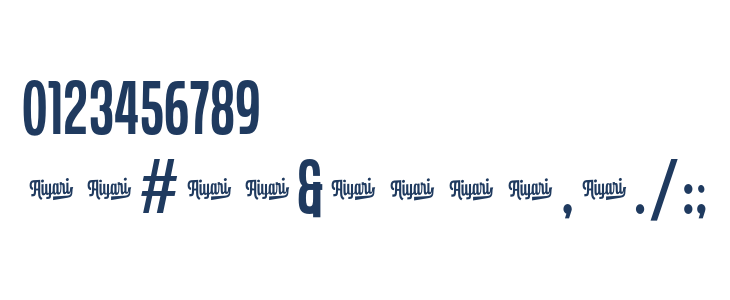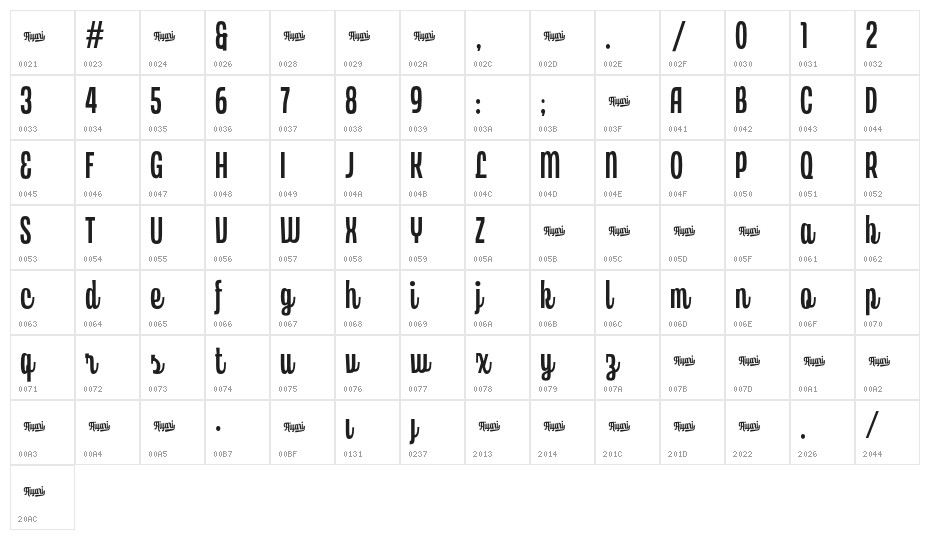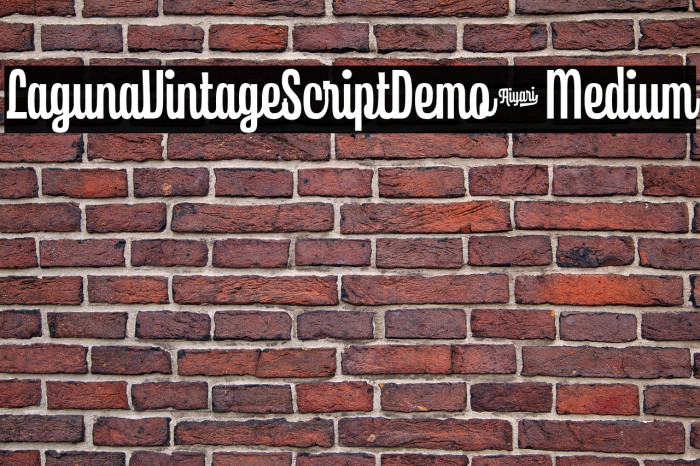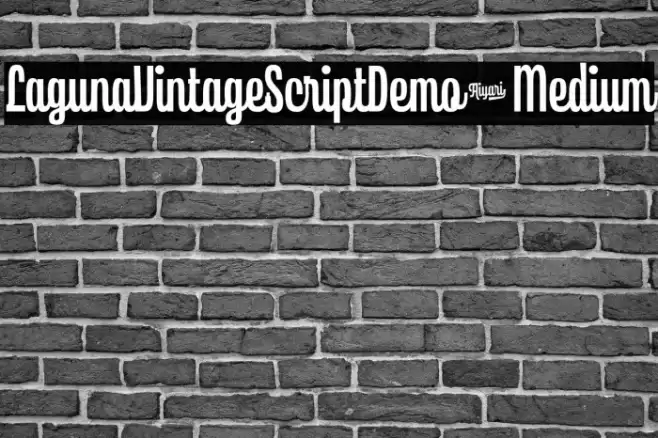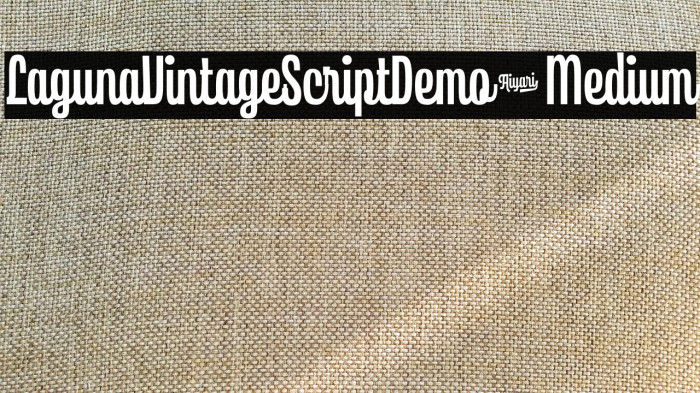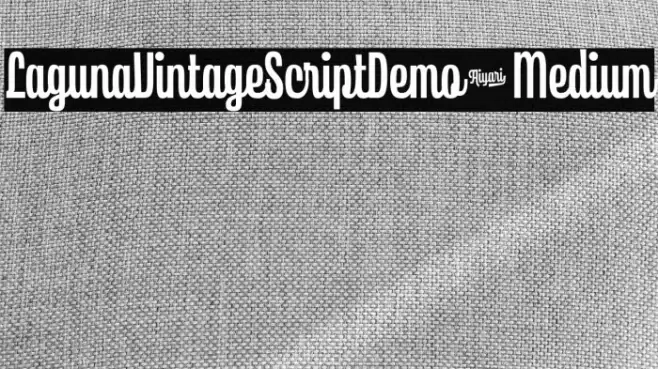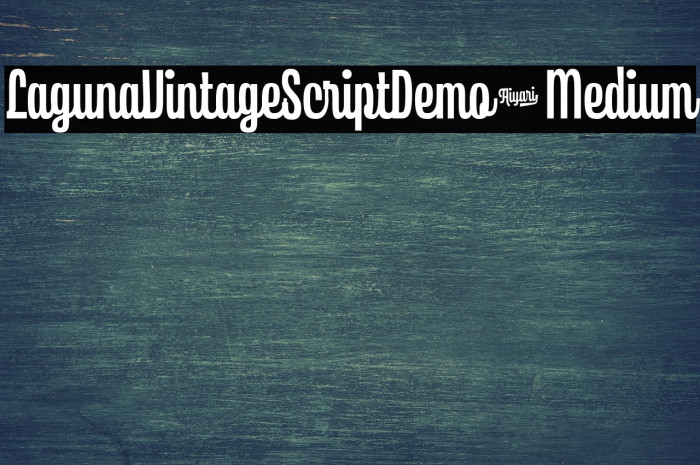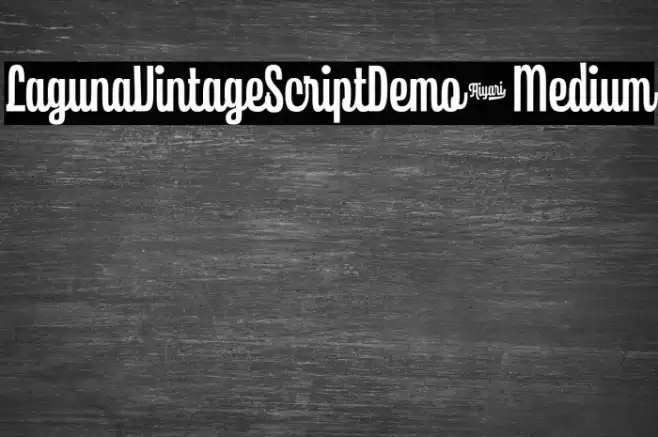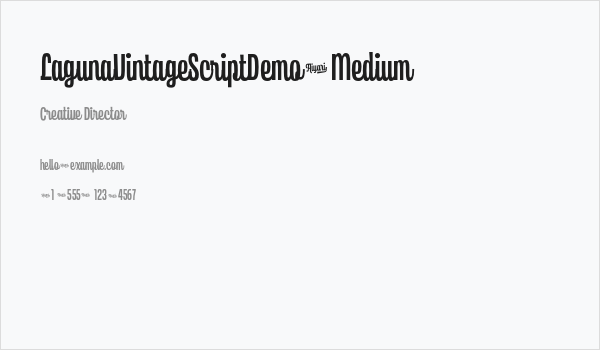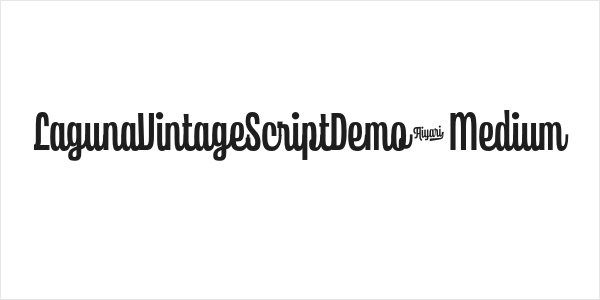
LagunaVintageScriptDemo-Medium Font
LagunaVintageScriptDemo-Medium Description
This font features a bold and vintage-inspired script style that combines both uppercase and lowercase letters with a distinctive flair. The uppercase letters are tall and narrow, with a slight curve that adds elegance and a touch of retro charm. The lowercase letters maintain a consistent flow, with rounded edges and smooth connections that enhance readability. Numbers are bold and clear, making them suitable for various design applications. Special characters are uniquely styled to match the overall aesthetic, providing a cohesive look. The font's design is reminiscent of mid-20th-century signage, offering a nostalgic feel while remaining versatile for modern use.